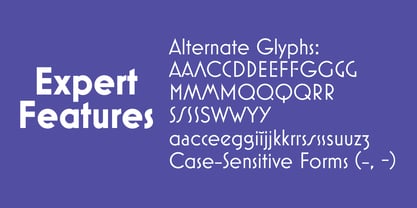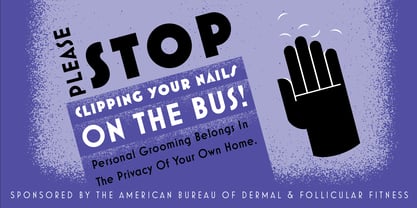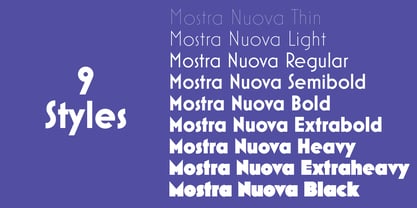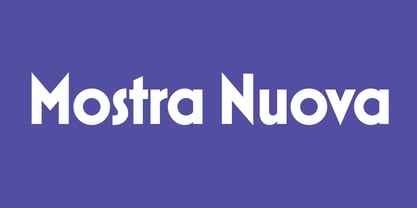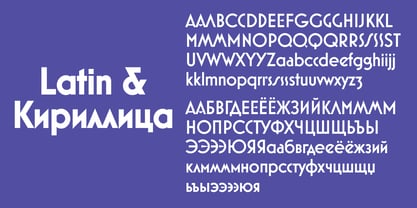
Mostra Nuova™
by Mark Simonson Studio
The Mostra Nuova Font Family was designed by Mark Simonson and published by Mark Simonson Studio. Mostra Nuova contains 18 styles. More about this family
Mostra Nuova is based on a style of lettering often seen on Italian Art Deco posters and advertising of the 1930s. Mostra Nuova contains many alternate characters, representing commonly-found variations in Italian Art Deco lettering. They can be used in endless combinations to capture a particular mood or style. There are nine weights ranging from the almost invisible Thin to the ridiculously bold Black. Mostra features an extended Latin character set (most Western and Eastern European Latin-based languages supported) and Cyrillic (including local variants for Bulgarian, Serbian, and Macedonian). Mostra Nuova alternate characters may be selected in any app that supports OpenType (most do nowadays) or using Cascading Style Sheets (CSS) on the web. It includes 20 stylistic sets allowing you to customize its appearance globally. Alternate characters may also be inserted manually in apps that feature glyph palettes.
Designers: Mark Simonson
Foundry: Mark Simonson Studio